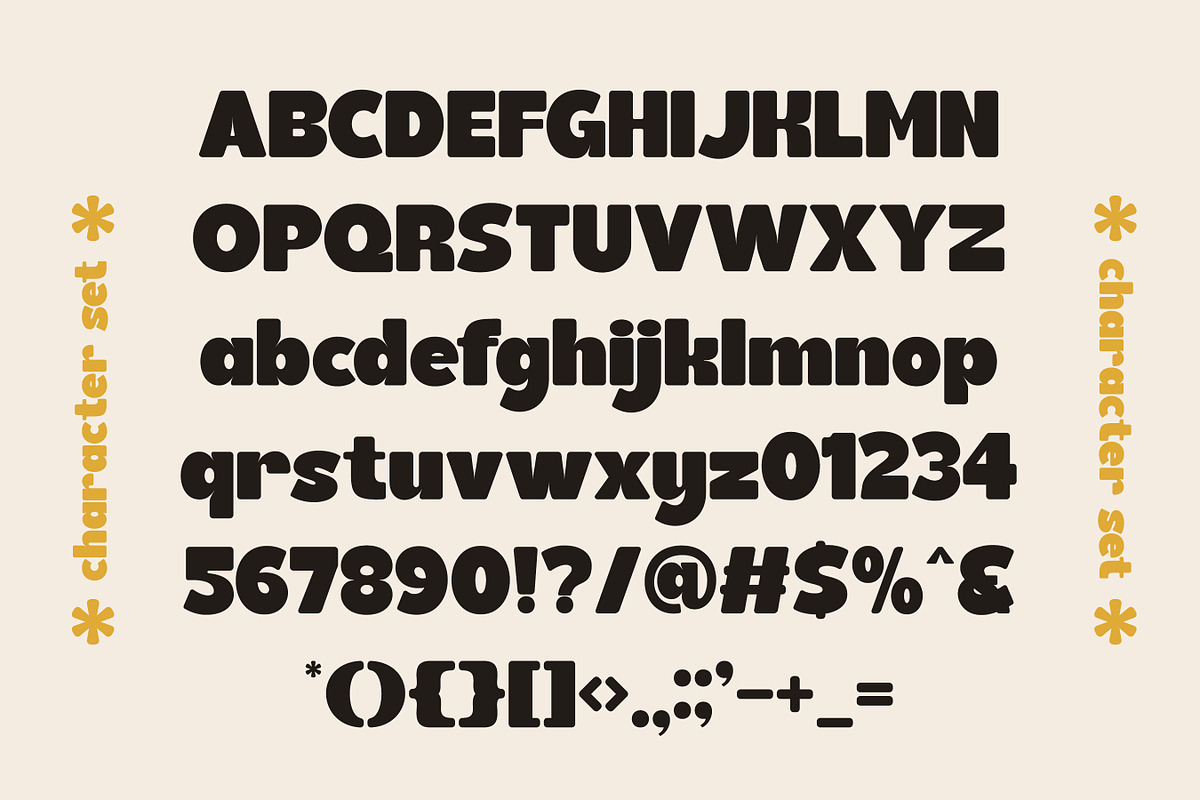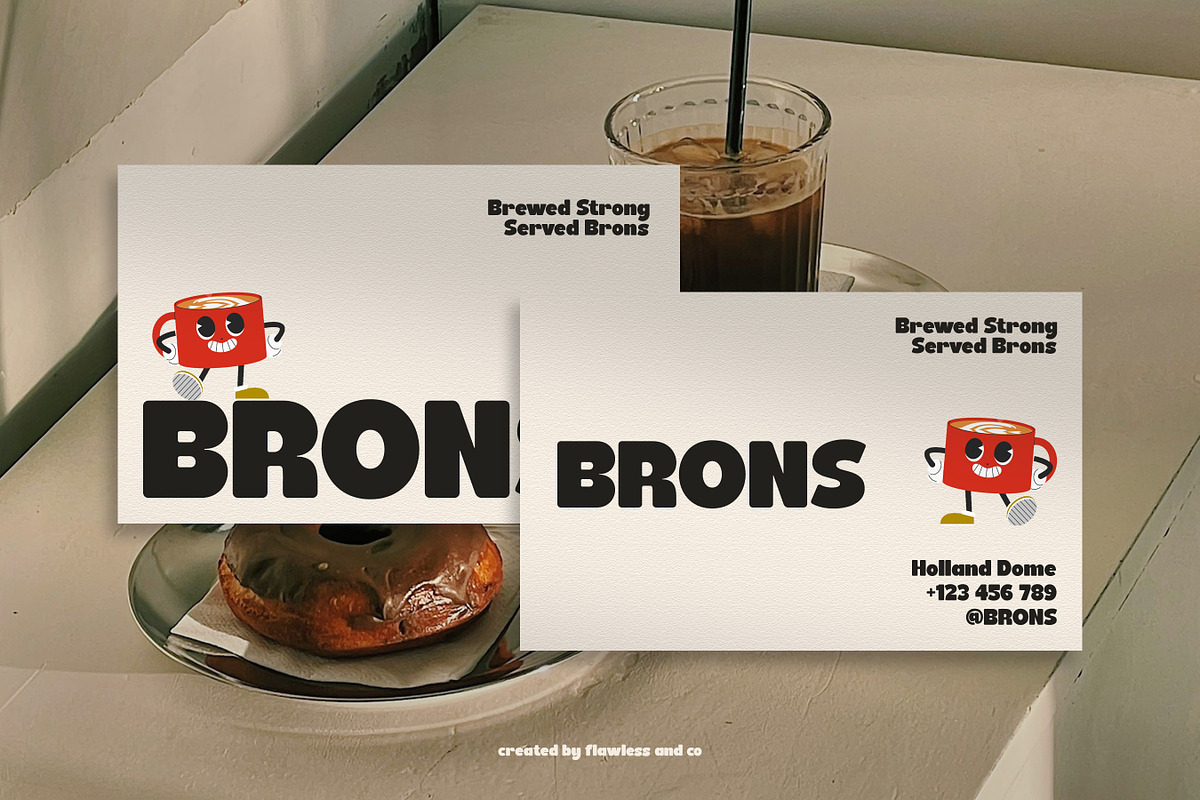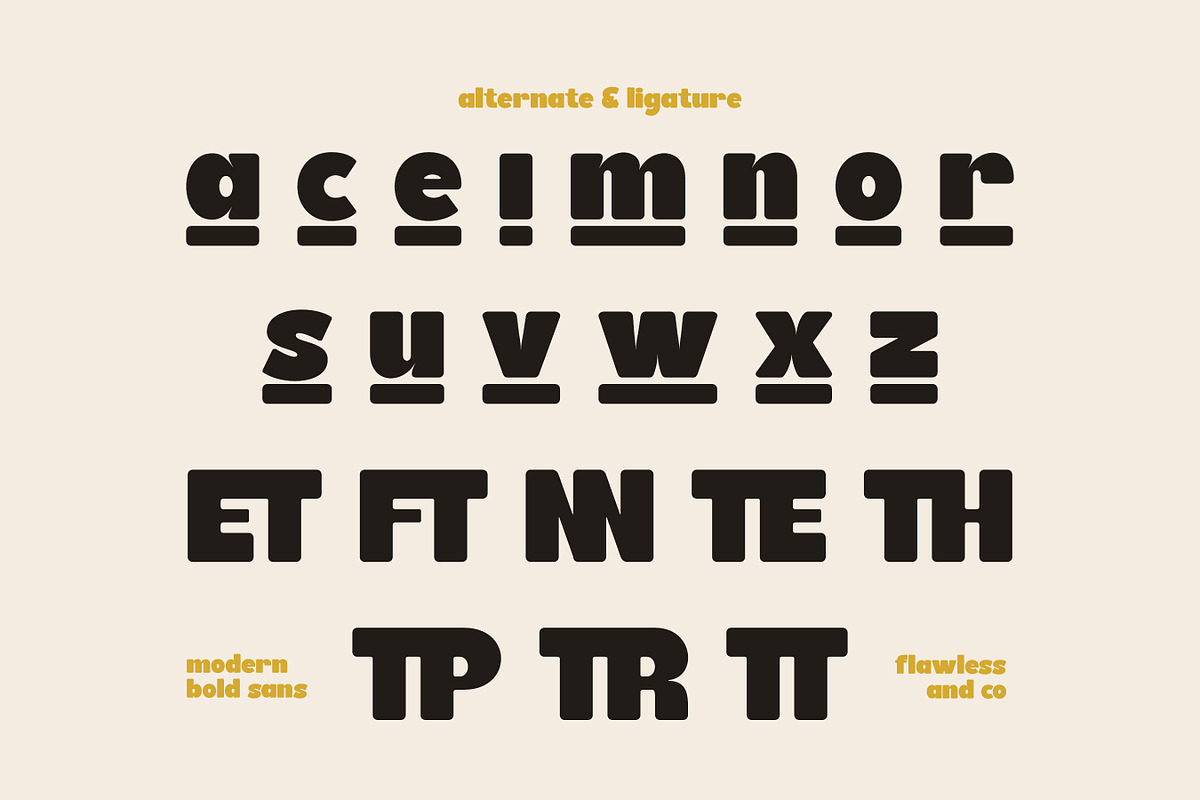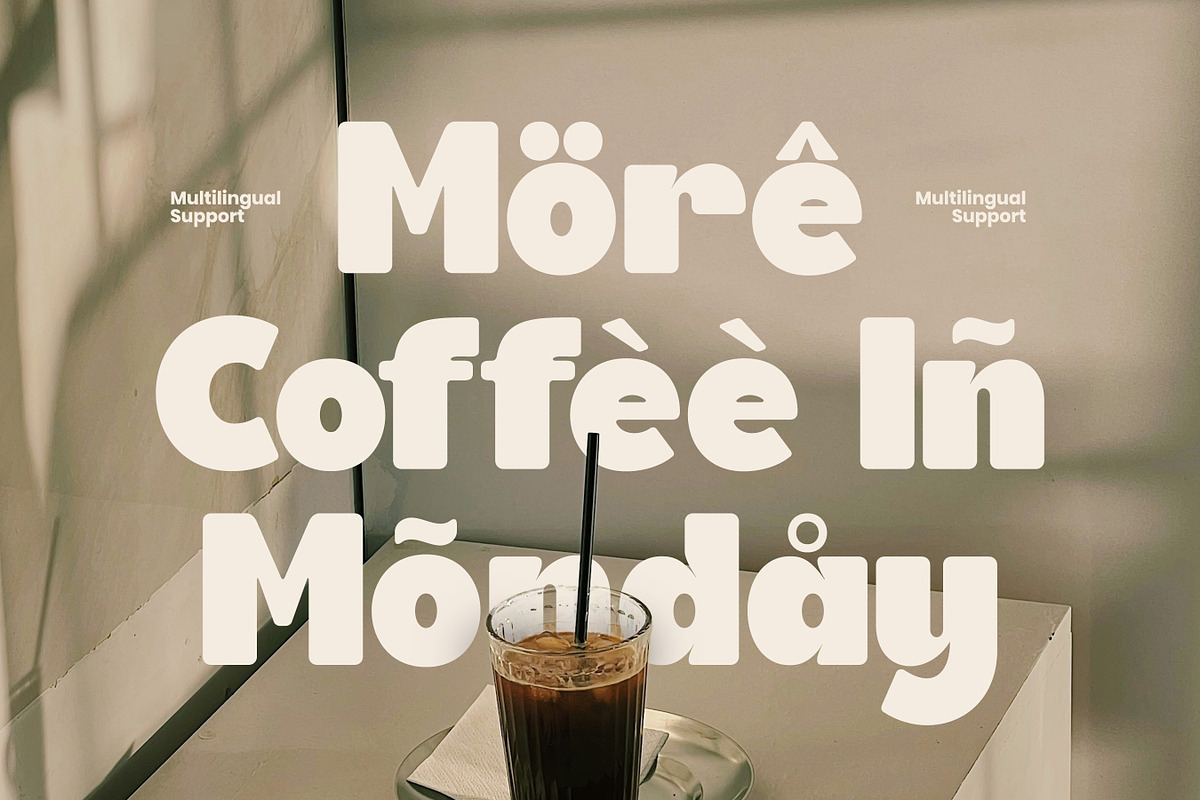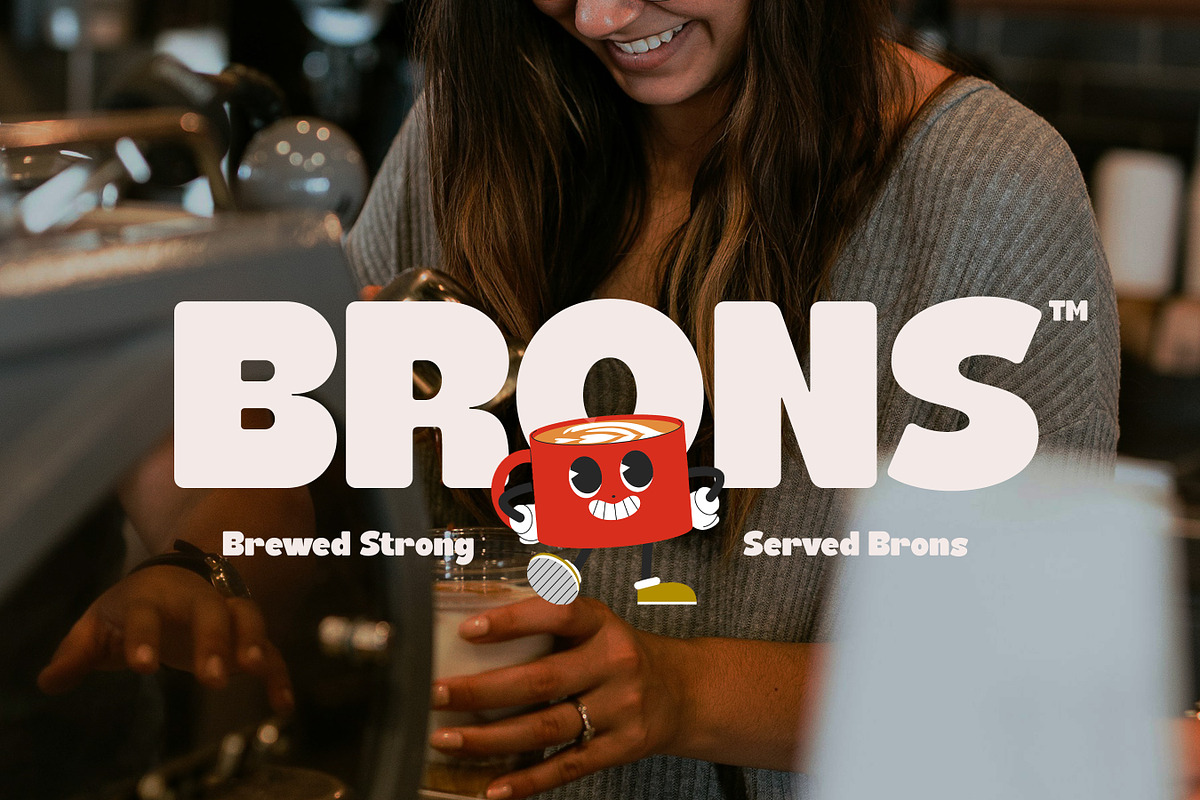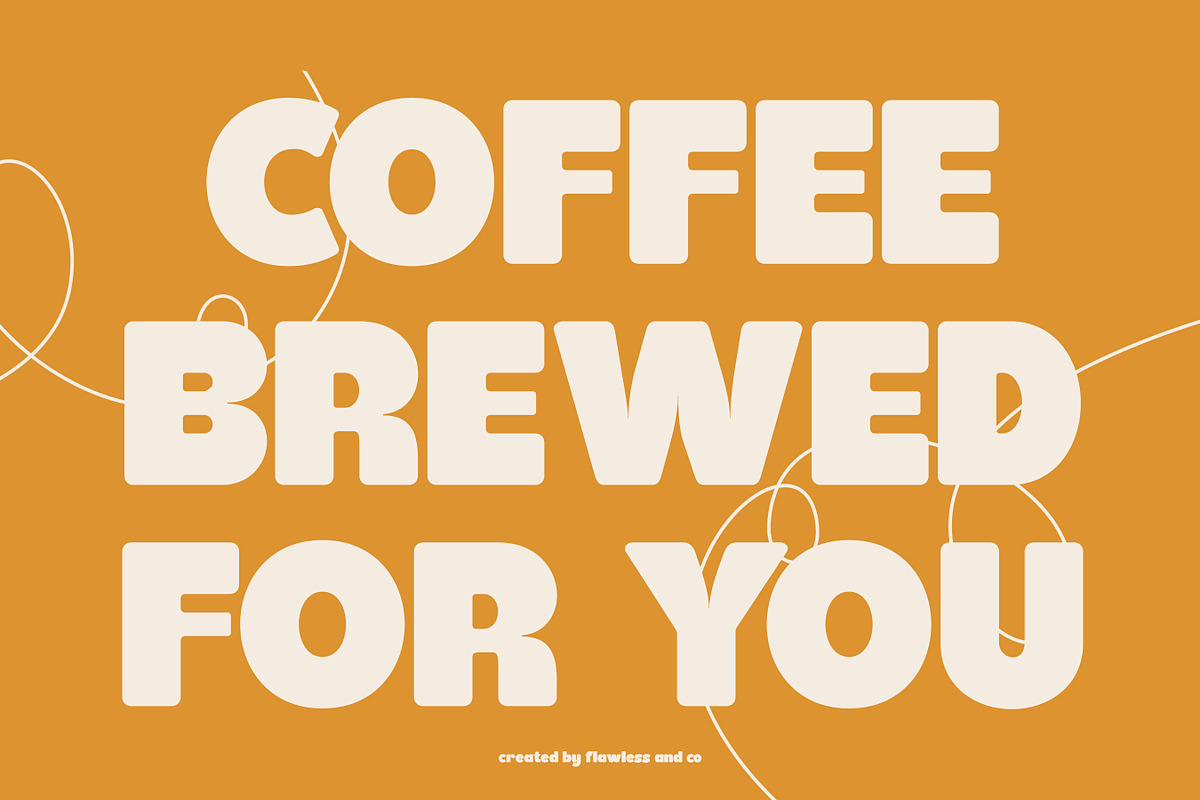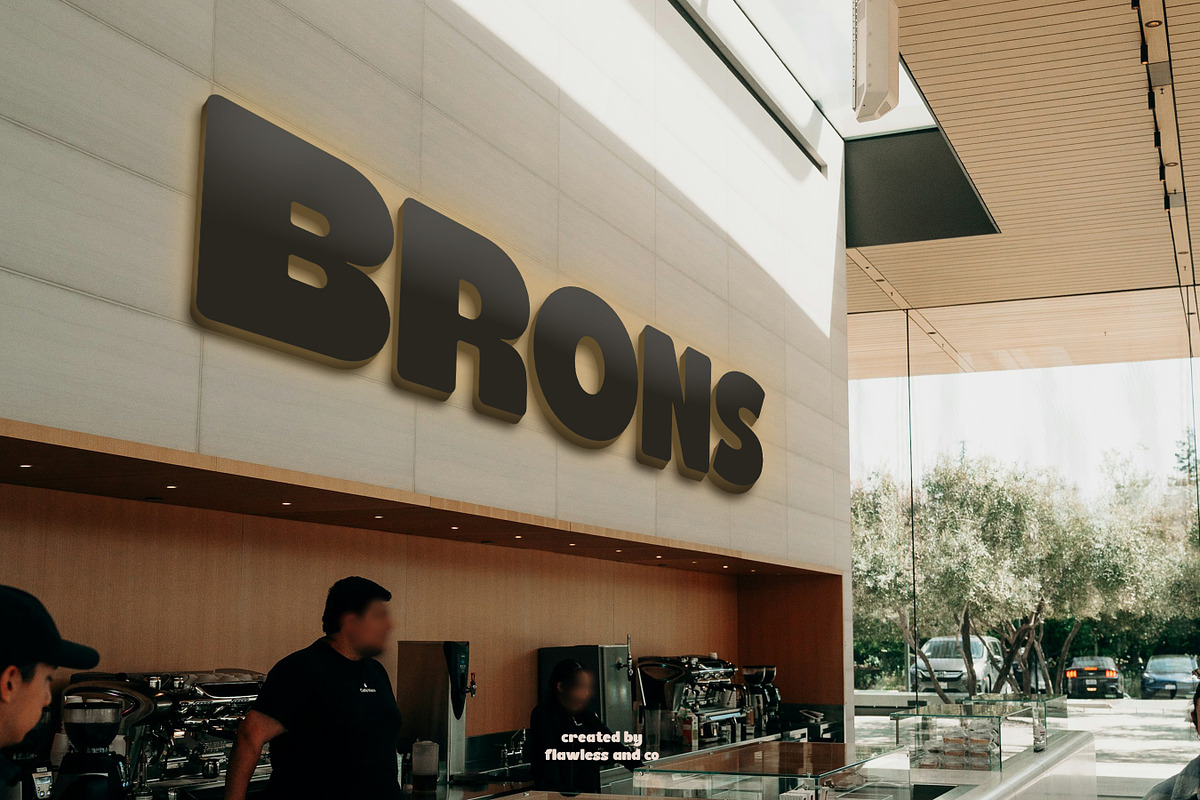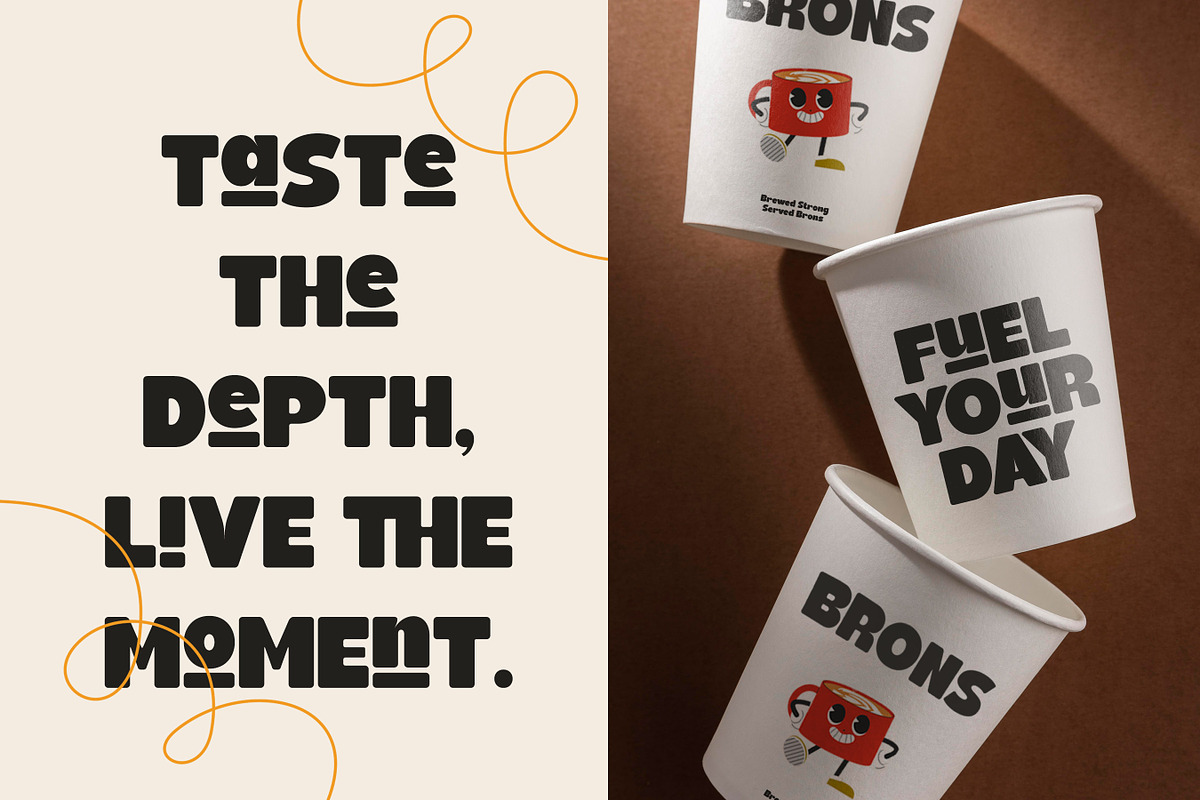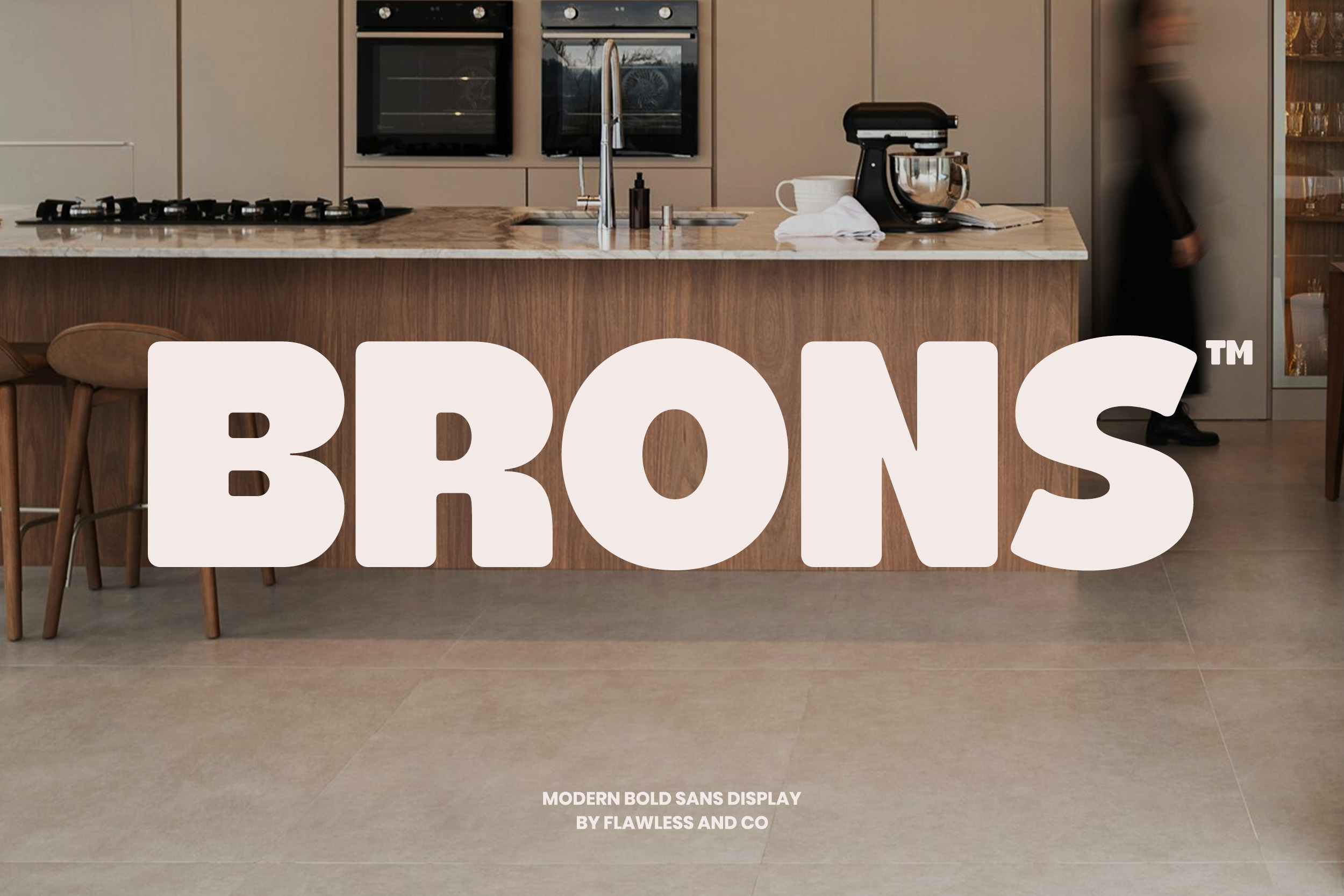
Brons - Bold Display Sans Serif Font
Brons is a powerful bold sans serif display font designed to command attention and elevate visual impact. With its chunky, confident shapes and clean modern structure, Brons delivers a strong personality that stands out across branding and headline applications. Perfect for designers who want to create bold statements, this typeface brings a contemporary yet friendly feel to every layout.
Who Should Use Brons?
Brons is perfect for designers, brand creators, and businesses who want a bold, striking, and modern visual identity. It’s ideal for creatives who need a display font that stands out effortlessly in logos, packaging, posters, advertising campaigns, product branding, editorial headings, and social media visuals. If you want your message to be loud, memorable, and full of character, Brons is the right choice.
A Must-Have Font for "Brand and Logo" Creators and Designers
Brons is a must-have font for designers and brand creators who aim to build strong, standout identities. With its bold and modern display style, Brons delivers maximum visual impact, making every logo, headline, or packaging design look confident, memorable, and professionally crafted. It’s the perfect choice for anyone who wants to elevate their brand presence with a font that commands attention and leaves a lasting impression.
Why Choose Brons for "Brand and Logo" Projects?
Choose Brons because it’s specifically crafted to deliver power, clarity, and bold character in every design. Its strong geometric structure and soft rounded edges create a perfect balance between modern style and friendly personality—making logos feel confident yet approachable. Brons ensures high readability at any size, performs beautifully in print and digital media, and gives brands a distinctive visual presence that stands out from the crowd. If you want a font that instantly strengthens brand identity and communicates professionalism, Brons is the right choice.
Suitable For
- Branding & visual identity
- Logo design & logotype concepts
- Packaging & product label
- Advertising & promotional materials
- Posters, titles, and headline layouts
- Social media content & marketing assets
- Website headers & UI display text
- Creative agency and portfolio presentations